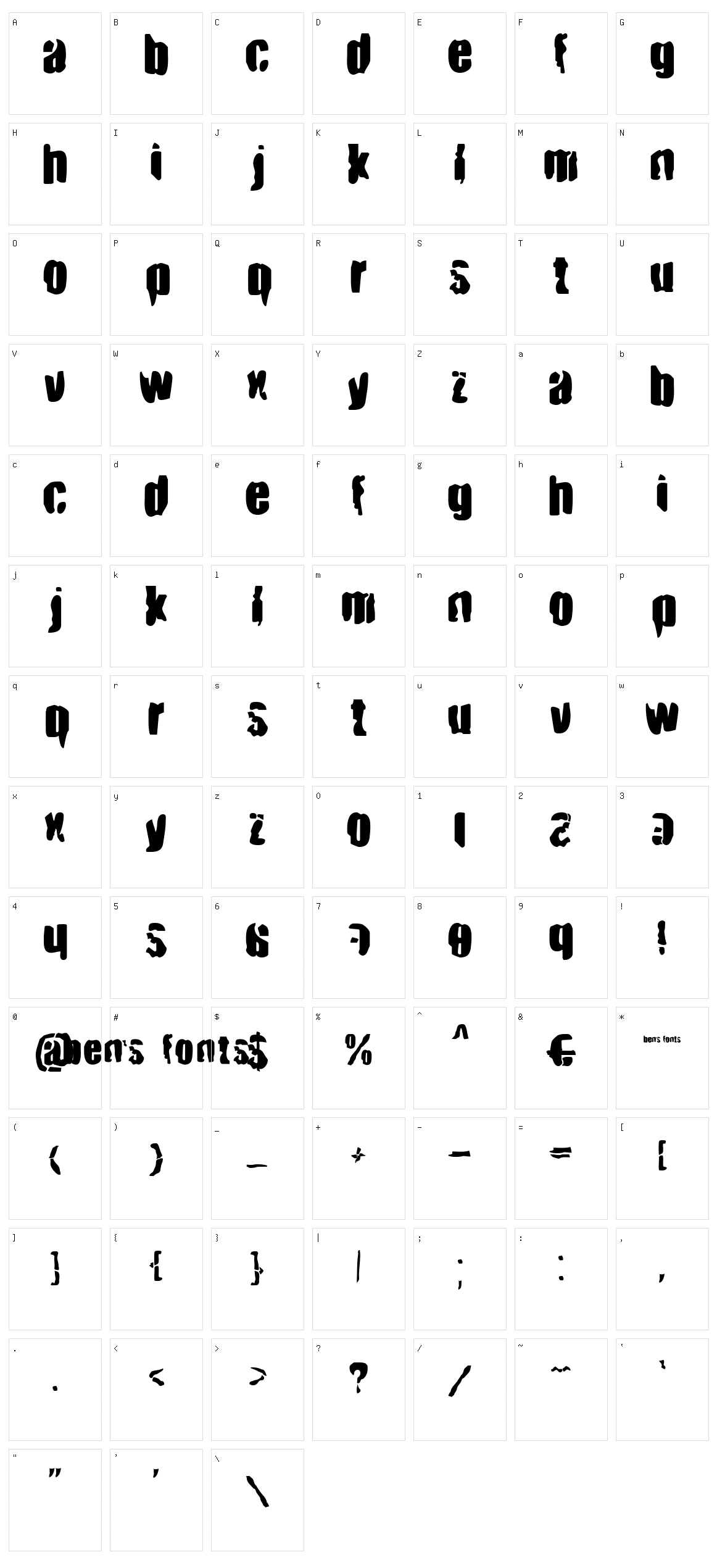
The free font BN Smash is carefully designed by Ben's Fonts, showcasing a thoughtful balance of creativity and usability and falls under the Destroy font style. When you download the ZIP file, it contains only 16.52 KB of font files, making it lightweight and quick to download. Please review the license details below to understand permitted usage and distribution rights. If license information is not available, we recommend using this font for personal projects only or contacting the author directly for commercial usage permissions.